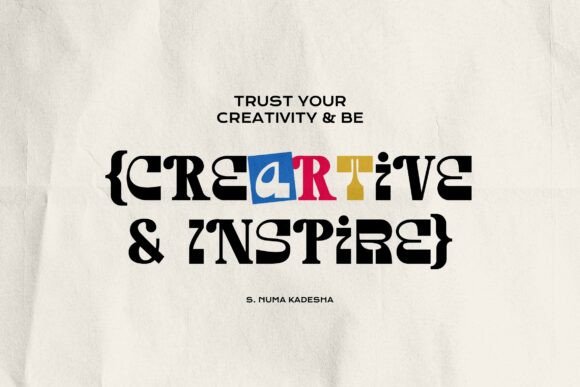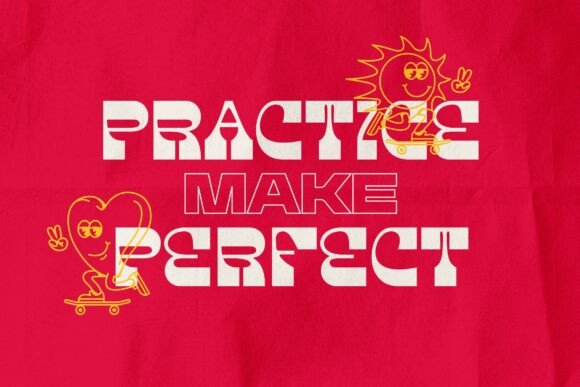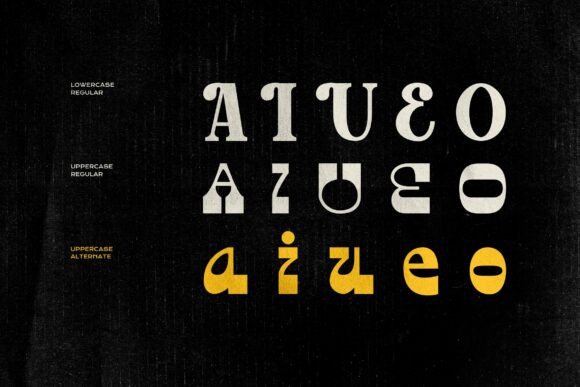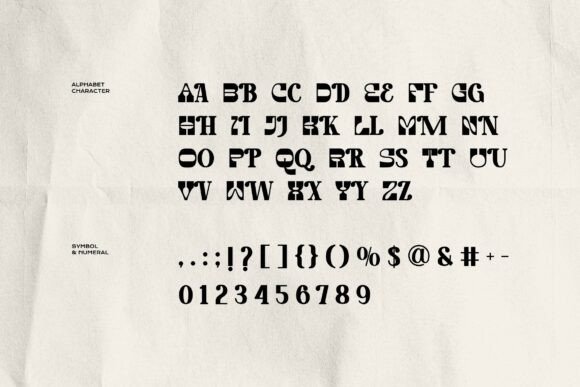
Introduction to Kovice Font
Have you ever stumbled upon a font that sparks creativity and transports you to a world of endless possibilities? For designers, this moment is priceless, and the Kovice Font is sure to deliver just that. Imagine the excitement of browsing through a treasure trove of fonts, searching for the perfect fit for your next project, and then stumbling upon a hidden gem that takes your design to the next level.
With its unique blend of retro-inspired curves and modern geometric shapes, the Kovice Font is a game-changer for creative projects that require a high-quality, one-of-a-kind look. Whether you’re working on a branding project, designing a poster, or creating a label, this font’s bold, theatrical style is sure to make your design stand out from the crowd.
Key Features of Kovice Font
- High-quality font for creative projects, designed with a modern and sleek aesthetic.
- Unique transparent background design makes it ideal for use on images and graphics with complex backgrounds.
- Perfect design resource for digital artists, graphic designers, and anyone looking for a high-quality font.
- Designed with a clear and readable font style, suitable for body text and headings in various creative projects.
Honest Review: Kovice Font
I recently came across the Kovice Font while searching for a high-quality font to enhance my creative project. As a designer, I appreciate fonts that make a statement without overpowering the content.
What works well with the Kovice Font is its sleek and modern design. The font has a unique aesthetic that makes it perfect for use in digital design, particularly for those who need a font with a transparent background. The font is also highly customizable, making it a great design resource for designers who want to create unique and personalized content.
Here are some of the key features of the Kovice Font that I appreciate:
- Highly customizable, allowing designers to create unique and personalized content
- Modern and sleek design that makes it perfect for use in digital design
- Transparent background, making it easy to use in design projects
However, I do have some limitations to consider:
- ⚠️ Limited number of font styles, which may not be suitable for designers who need a wide range of font options
- ⚠️ May not be as readable in smaller font sizes, which can affect the overall design
Overall, I’m impressed with the Kovice Font and would recommend it to designers who are looking for a high-quality font that is easy to use and customize. It’s a great addition to any design resource library, and its free download makes it an excellent choice for designers on a budget.
Kovice Font is versatile and can be used in a variety of design projects, including logos, posters, business cards, and infographics. It’s also great for creating headings, titles, and body text in your designs. With its high-quality design and transparent background, Kovice Font is an excellent choice for designers looking for a reliable design resource.